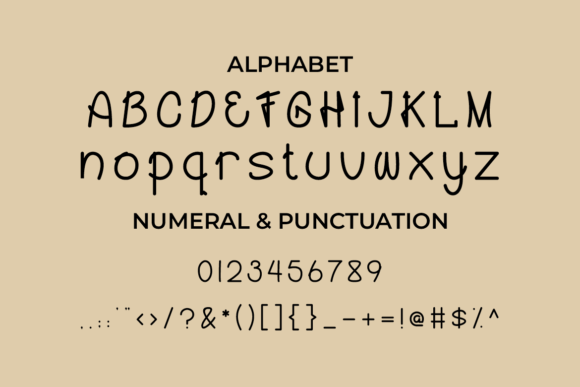
Kagungan Font
About Kagungan Font
The Kagungan font brings fun, energy, and creativity together in a single typeface. With its expressive strokes and lively personality, this handwritten font helps your designs feel human and full of life. It’s ideal for any project that needs a bold, personal touch.
A Handwritten Style Full of Personality
Each letter in Kagungan was drawn with intention. The shapes flow freely, mimicking the spontaneity of real handwriting. As a result, your designs gain warmth and individuality. This font feels playful, yet it remains readable thanks to its balanced structure.
Kagungan works beautifully in many use cases. For example, you can use it for product packaging, posters, social media banners, or custom greeting cards. Additionally, it performs well in both print and digital formats.
Ideal for Creative and Informal Designs
Because of its natural look, the Kagungan font fits especially well in artistic or casual projects. It’s a popular choice for:
• Children’s books
• Personal blogs
• Handmade product labels
• DIY crafts and planners
• Quote graphics
In addition, you can pair it with minimalist sans-serifs to create striking design contrasts. This approach allows you to build layouts that feel both fresh and professional.
Make Your Work Stand Out
If you want to create joyful, handmade-style visuals, the Kagungan font is the perfect fit. It brings a personal vibe that helps your message feel authentic. More importantly, it gives your work a voice—one that’s expressive, original, and hard to ignore.